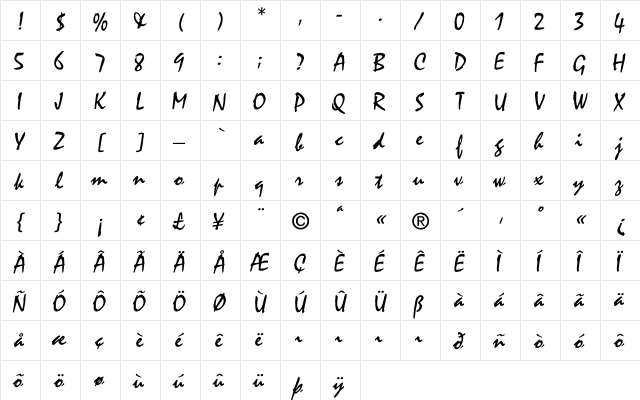
Keltonn Regular
Design Context for Keltonn Typeface
Keltonn takes a measured approach to typography — its balanced proportions and neutral character make it a reliable workhorse for both digital and print work.